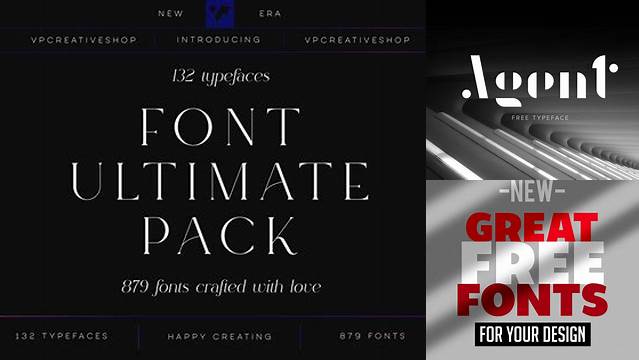
Free Behance Fonts: Find Awesome Fonts For Your Projects
Hey guys! Ever found yourself scrolling through Behance, drooling over the typography, and wondering where to get those awesome fonts? You're not alone! Behance is a goldmine for design inspiration, and often, that includes some seriously cool and unique fonts. The good news is that many designers generously offer their fonts for free download, making it easier than ever to elevate your projects. Let's dive into the world of free Behance fonts and how to make the most of them.
Discovering Free Fonts on Behance
Finding free fonts on Behance requires a little bit of savvy searching. While Behance itself doesn't have a dedicated 'free fonts' section, many designers showcase their font designs as part of larger projects. Here's how to unearth those typographic treasures:
- Keywords are Key: Start by using specific keywords in the Behance search bar. Try terms like "free font," "free typeface," "open-source font," or even specific font styles like "free sans-serif font" or "free script font." The more precise you are, the better your chances of finding what you're looking for.
- Project Examination: Once you've run a search, carefully examine the projects that appear. Designers often include download links within the project description. Look for phrases like "free download," "download here," or a direct link to a website or file-sharing platform.
- Font Bundles and Collections: Sometimes, designers group several fonts into a bundle or collection and offer them for free or at a discounted price. Keep an eye out for these bundles, as they can be a great way to expand your font library quickly and affordably.
Best Practices When Downloading Behance Fonts
So, you've found a free font you love on Behance, awesome! But before you excitedly start using it in all your designs, here are a few best practices to keep in mind:
- Organize Your Fonts: Create a system for organizing your downloaded fonts. Use folders to categorize them by style (e.g., sans-serif, serif, script) or project. This will make it much easier to find the right font when you need it.
- Back Up Your Fonts: Fonts are valuable assets, so it's essential to back them up regularly. Store a copy of your font collection on an external hard drive, cloud storage service, or other secure location.
- Respect the License: This can't be stressed enough! Carefully read and understand the font license before using it. Make sure you're complying with the terms and conditions, especially regarding commercial use, modification, and redistribution.
Popular Types of Free Fonts Found on Behance
Behance boasts a diverse array of free fonts, catering to various design aesthetics and project requirements. Here are some popular types you might encounter:
- Sans-Serif Fonts: These fonts are characterized by their clean, modern look and lack of serifs (the small decorative strokes at the end of letterforms). Sans-serif fonts are highly versatile and suitable for a wide range of applications, from headlines and body text to logos and UI design. Popular styles include geometric sans-serifs, humanist sans-serifs, and grotesque sans-serifs.
- Serif Fonts: Serif fonts have serifs and often convey a more traditional and formal feel. They're commonly used in print design, such as books, magazines, and newspapers, but can also be effective in web design, especially for headlines and long-form content. Examples include old-style serifs, transitional serifs, and slab serifs.
- Script Fonts: Script fonts mimic the look of handwriting and add a touch of elegance and personality to designs. They're often used for logos, invitations, greeting cards, and other projects where a personal touch is desired. Calligraphic scripts, brush scripts, and handwritten fonts are all popular options.
- Display Fonts: Display fonts are designed to be used at larger sizes and are often characterized by their unique and eye-catching designs. They're ideal for headlines, posters, and other projects where you want to make a bold statement. Display fonts can range from quirky and playful to elegant and sophisticated.
- Monospaced Fonts: Monospaced fonts have characters that each take up the same amount of horizontal space. They're commonly used in coding, programming, and technical documentation, but can also be used for stylistic purposes in graphic design. Courier New and Monaco are classic examples of monospaced fonts.
How to Use Free Behance Fonts Effectively
Okay, you've got your free fonts downloaded and organized. Now, how do you actually use them effectively in your designs? Here are a few tips:
- Font Pairing: Combining different fonts can create visual interest and hierarchy in your designs. Experiment with pairing different font styles, such as a sans-serif with a serif, or a bold display font with a clean sans-serif. Use online font pairing tools to get inspiration and ideas.
- Hierarchy and Emphasis: Use different font sizes, weights, and styles to create a clear visual hierarchy and emphasize important elements in your design. For example, use a larger and bolder font for headlines and a smaller and lighter font for body text.
- Readability and Legibility: Ensure that your chosen fonts are readable and legible, especially for body text. Avoid using overly decorative or complex fonts that can be difficult to read. Pay attention to kerning (the spacing between individual letters) and leading (the spacing between lines of text) to improve readability.
- Consistency: Maintain consistency in your font usage throughout your design. Stick to a limited number of fonts (usually no more than two or three) and use them consistently across all elements of your design. This will create a cohesive and professional look.
- Context Matters: Choose fonts that are appropriate for the context of your design. Consider the target audience, the message you're trying to convey, and the overall tone and style of your project. A playful script font might be perfect for a children's book, but it wouldn't be suitable for a corporate report.
Staying Updated on New Free Fonts
The world of free fonts is constantly evolving, with new fonts being released all the time. Here are a few ways to stay updated on the latest free font offerings on Behance and beyond:
- Follow Designers: Follow your favorite font designers on Behance and other social media platforms. This way, you'll be among the first to know when they release new fonts.
- Join Design Communities: Participate in online design communities and forums where designers share their work and resources. These communities are a great place to discover new fonts and get feedback on your designs.
- Subscribe to Newsletters: Many font foundries and design blogs offer newsletters that feature new fonts, design tips, and other resources. Subscribe to these newsletters to stay in the loop.
- Use Font Websites: Explore websites dedicated to curating and showcasing free fonts. These websites often have search filters and categorization options to help you find the perfect font for your project.